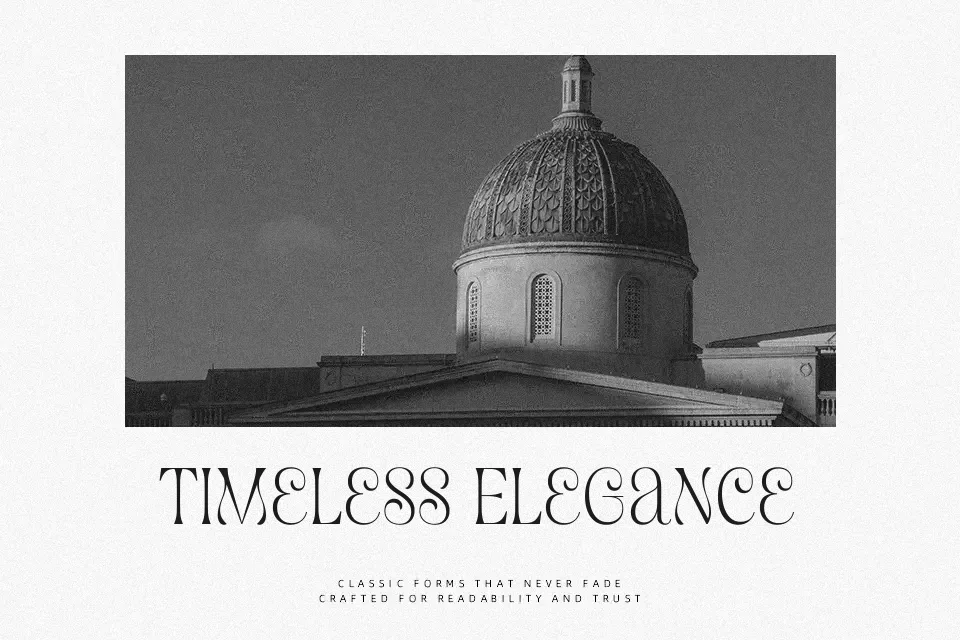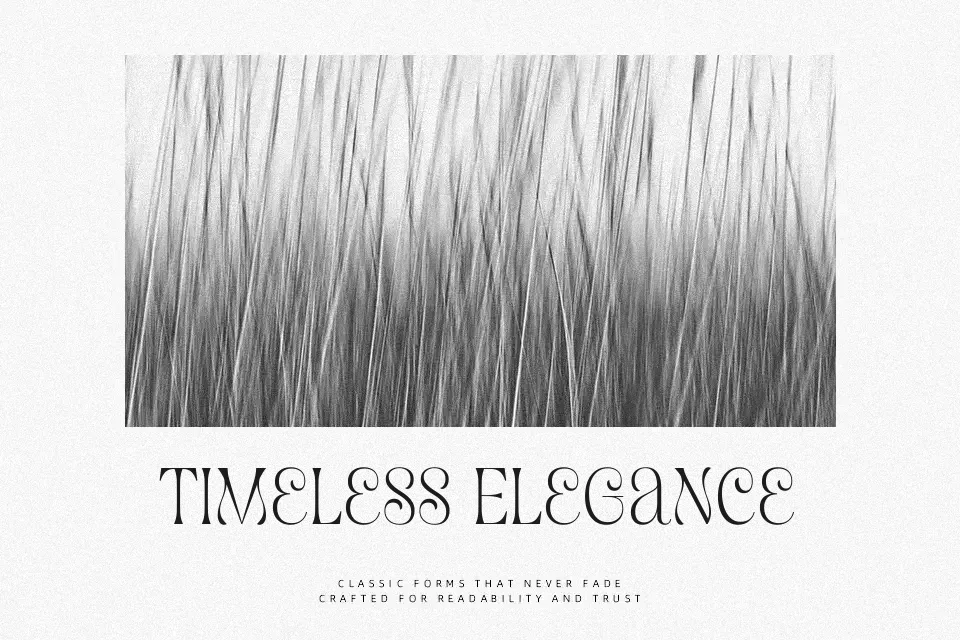
Starcheers Font
Designed by Moka Type Studio
Starcheers Font is defined by pronounced stroke contrast, stylized bracketed serifs, and sweeping organic curves reminiscent of classic seventies display lettering. The letterforms feature moderate character widths and tightly balanced horizontal spacing, creating a cohesive texture when set in large title configurations. Elegant teardrop terminals and flowing junctions give uppercase characters striking presence, while the lowercase maintains clean, rhythmic proportions across short phrases. The high decorative complexity excels in luxury packaging, festival posters, and retro editorial mastheads. However, fine hairline strokes and intricate swashes become difficult to distinguish at small caption sizes, making continuous body text impractical for dense layouts.
Best For: retro product packaging, music festival posters, magazine headline titles, vintage apparel branding
Not Ideal For: long paragraph reading, mobile app interface text, spreadsheet tables, small legal disclaimers